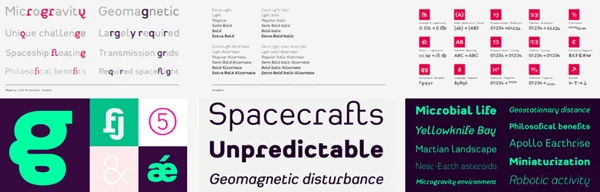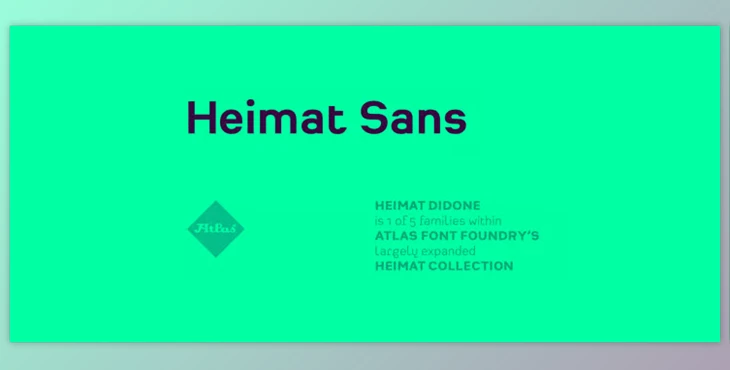
Heimat Sans is a unique member of the Heimat Collection type family and is joined by other styles from this collection, like Heimat Didone, Heimat Display, Heimat Mono, and Heimat Stencil. It is intended for eye-catching headlines and show-stopping posters, but it works well for ordinary reading. The design comes from the construction of letters in grids from the late 1920s and has both an aesthetically pleasing and historically rich look to it.
For diverse design needs, there are two alphabets, with a more conventional and more neutral, developed option, and 732 glyphs make this available in six weights. There are also alternate glyphs, a plethora of ligatures, lining and hanging provisionally and monospaced alike, inclusive of positive and negative circled characters, superiors and inferiors, and fractions with multilingual compatibility. Each of these characteristics comes with many OpenType features to make Heimat Sans a worthwhile component of any designer's toolkit.